Bar Le Côte
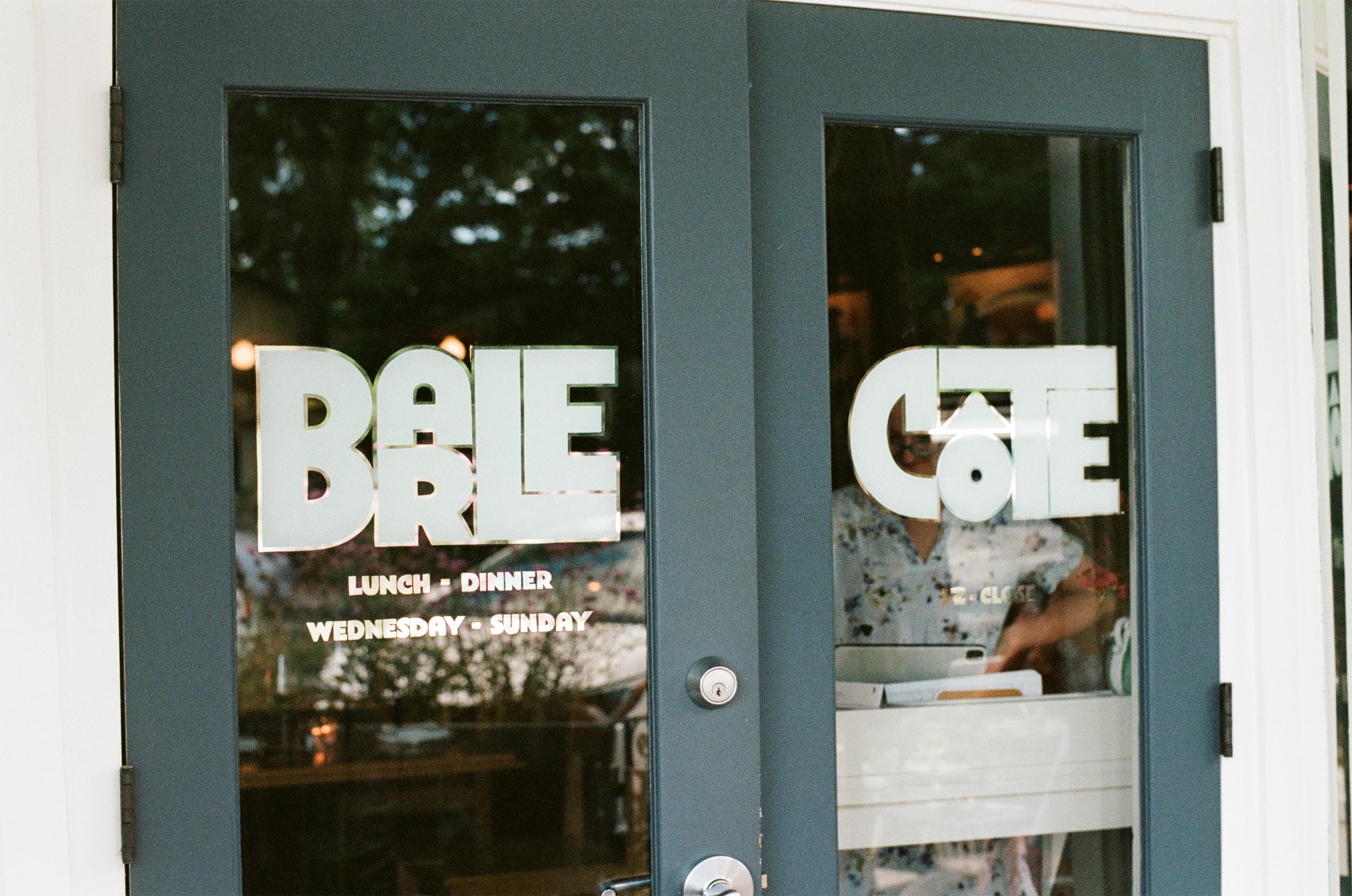
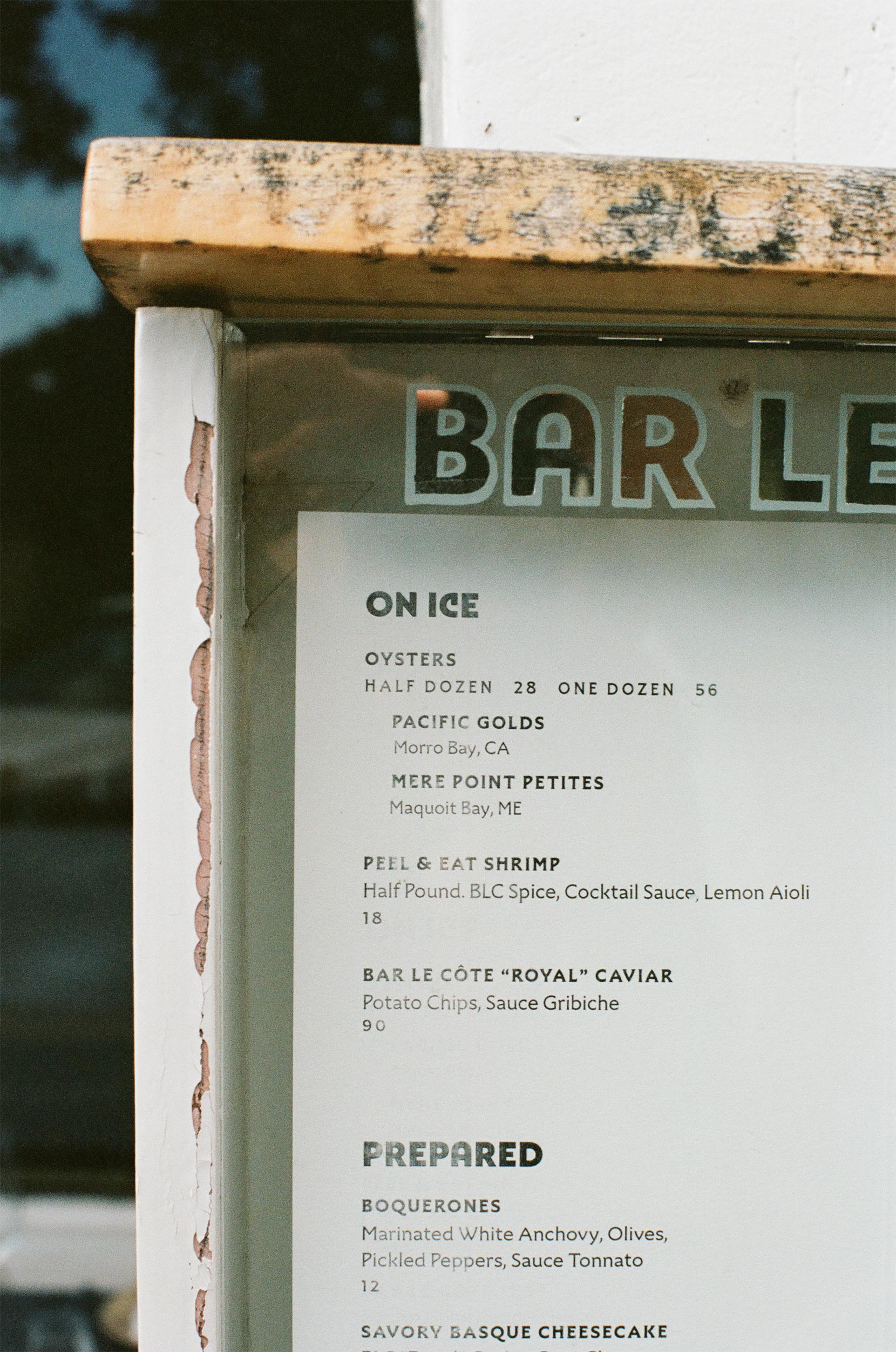
Bar Le Côte is a seafood tavern in Los Olivos, California. Inspired by the daily catch of the Central Coast and the modern cuisine of Europe’s seaside capitals, the team prepares thoughtful dishes in the casual, social atmosphere of the restaurant. The vibrant, green interior and custom banquettes were fabricated by Helvey Design Studio, and paintings of cowboys by Jon Flaming hang on the walls. The restaurant is a Companion Hospitality property, co-owned by executive chef Brad Mathews, along with Daisy and Greg Ryan, the duo behind Bell’s.
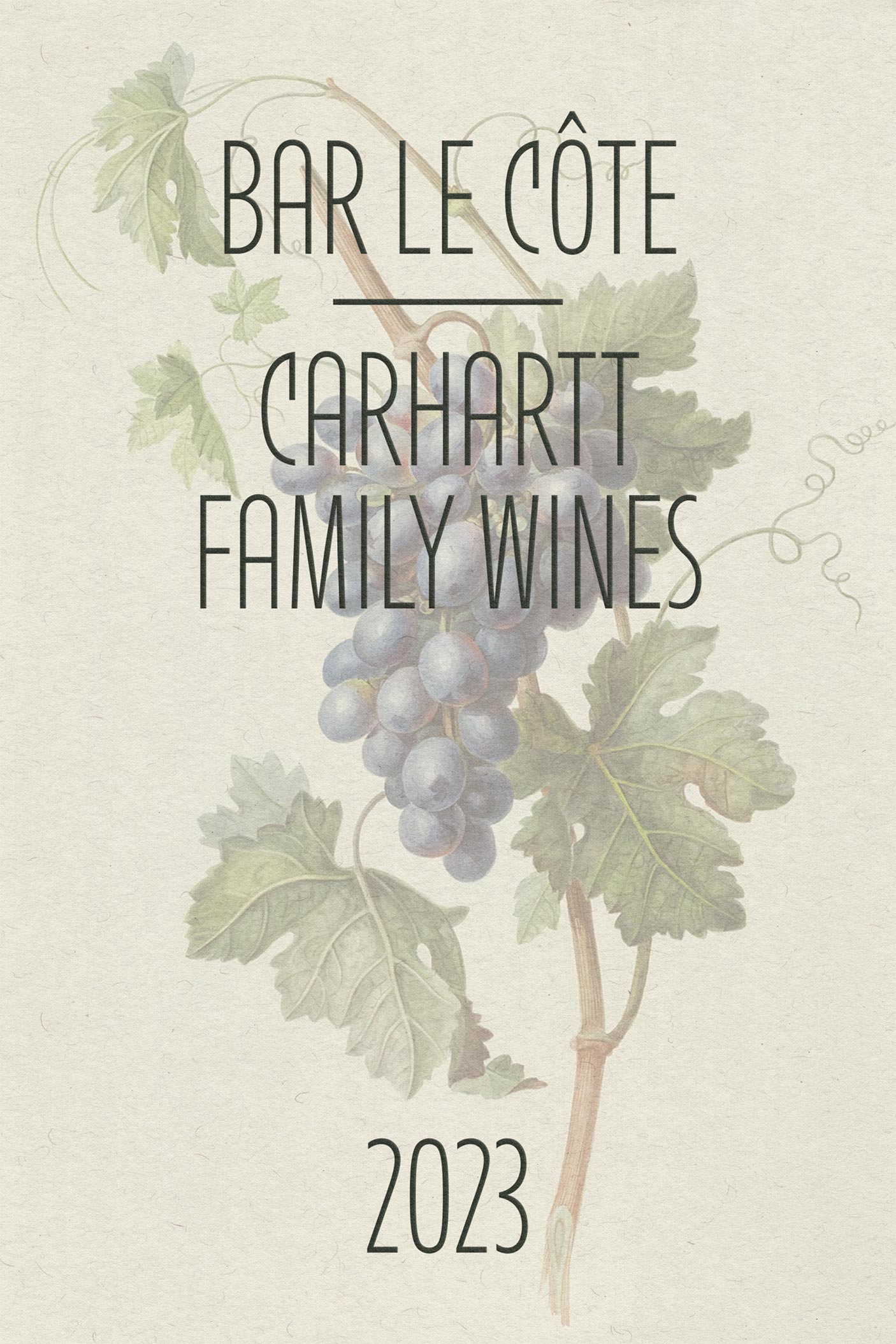
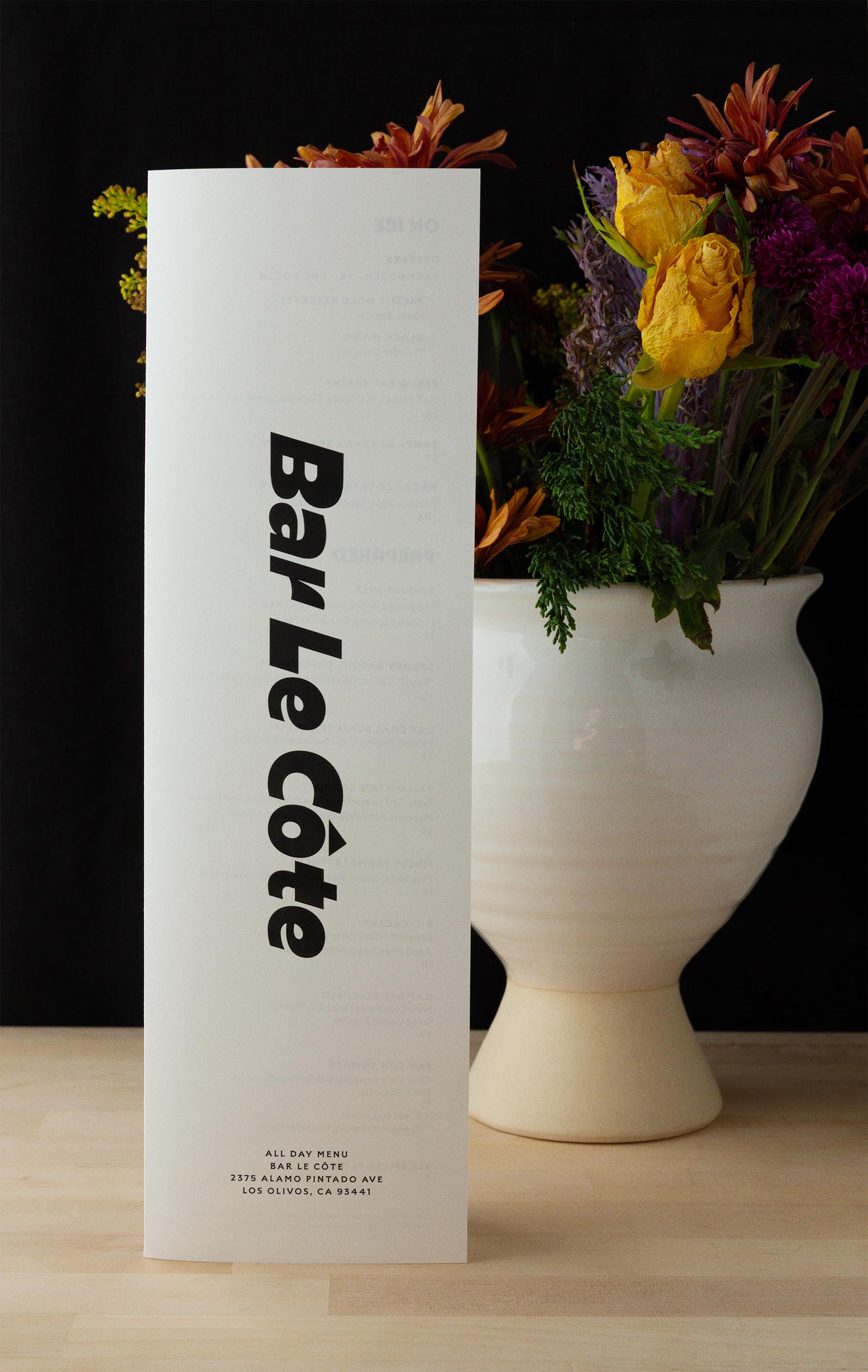
We started working on Bar Le Côte as the interior of the restaurant was coming together. Inspired by the tiles and bench shapes Helvey Design Studio was producing, we landed on a wordmark built from geometric, Art Deco letterforms, stacked together like a set of blocks. The logo also references poster lettering and architectural lettering from the European port cities that were top of mind as Brad, Daisy, and Greg developed the restaurant’s ethos and recipes.
The need for an alternate, more functional wordmark resulted in an all-caps display typeface that is used for headings and short bits of text. To round out the identity, Reed Bradley illustrated the exterior of the restaurant, and we added an italic wordmark for lunch menus. We designed two monograms for use on apparel—an elegant and calligraphic lockup and an ode to Elvis’s Taking Care of Business, lightning bolt included.
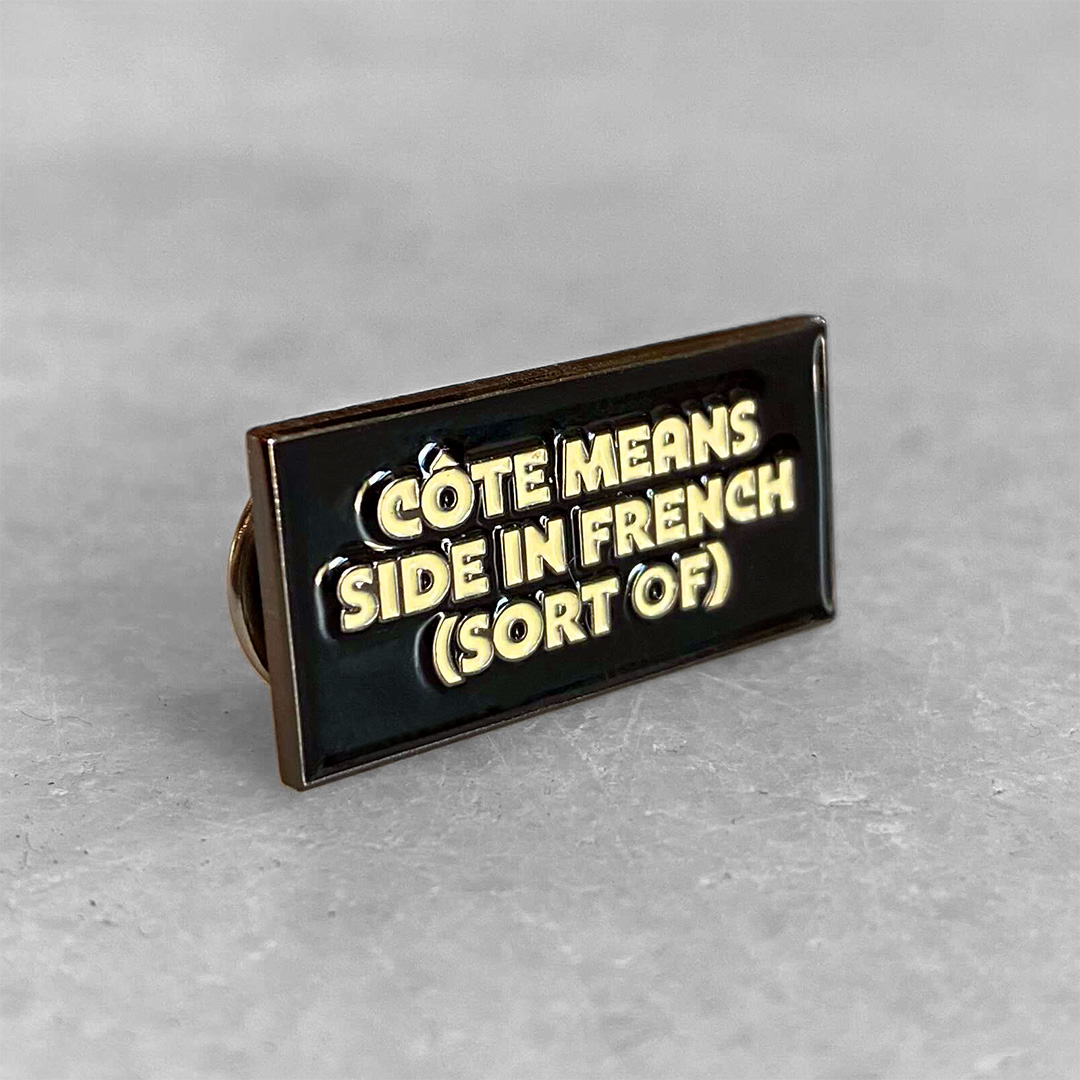
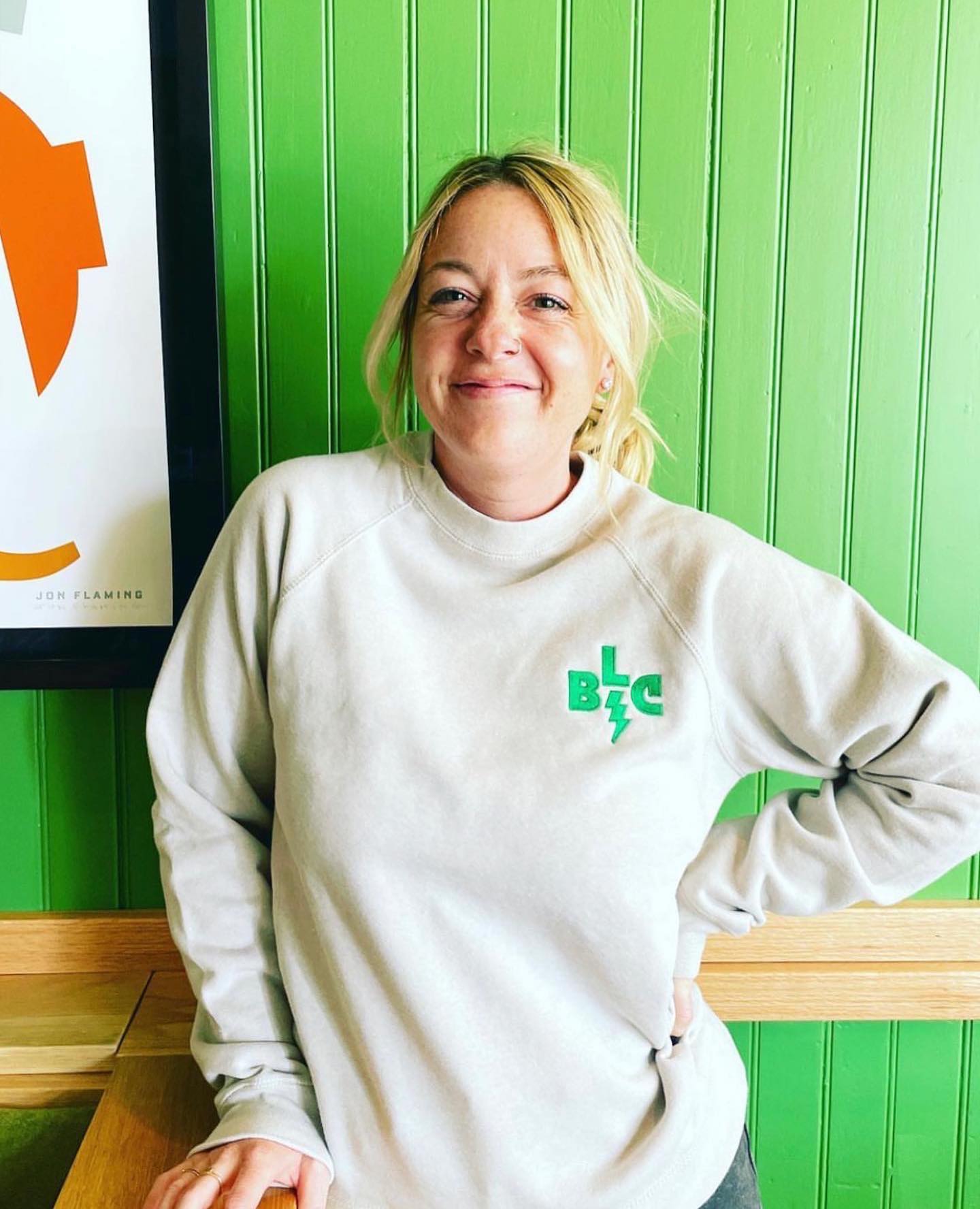
Bar Le Côte also uses our typeface Mara des Bois on menus and the website, and we created a color palette of greens and blues that echoes the space and the sea. Over the years, we’ve designed a handful of labels for collaborations with local wineries, many of them continuing the exploration of Art Deco letterforms at the heart of this identity.